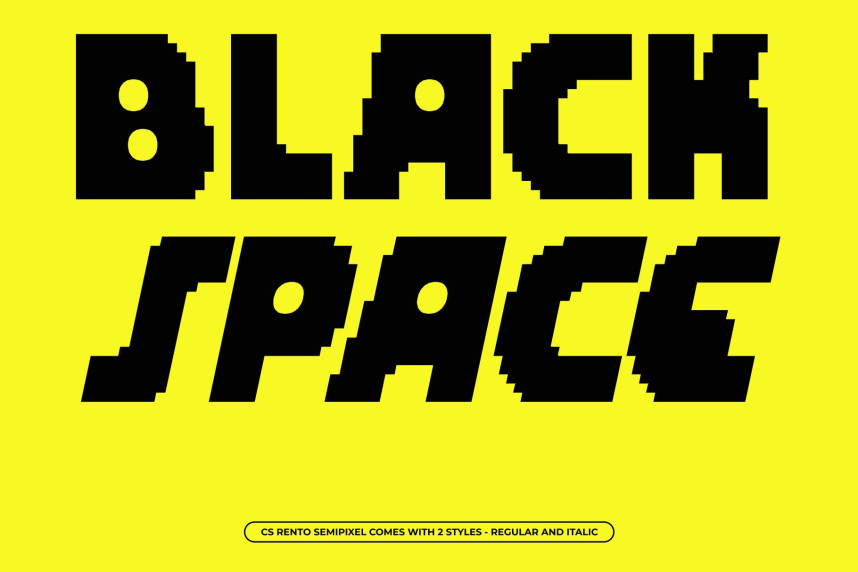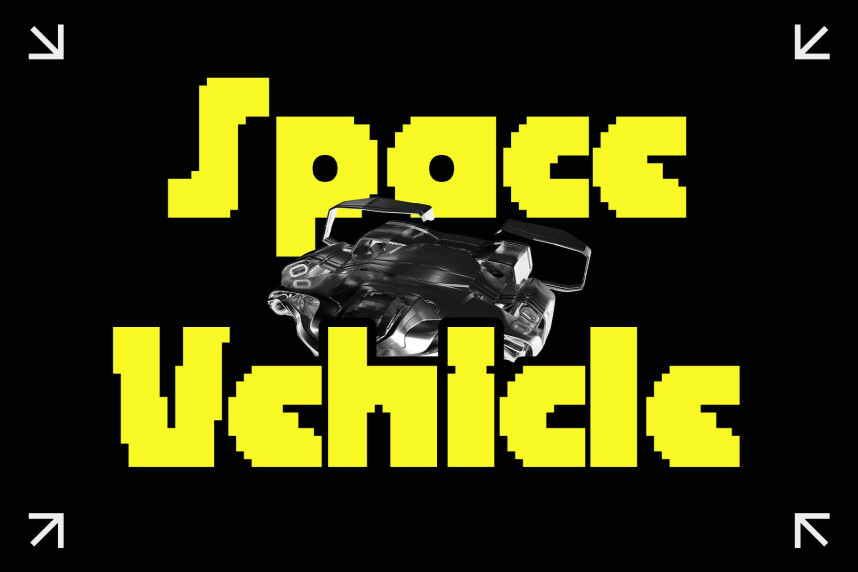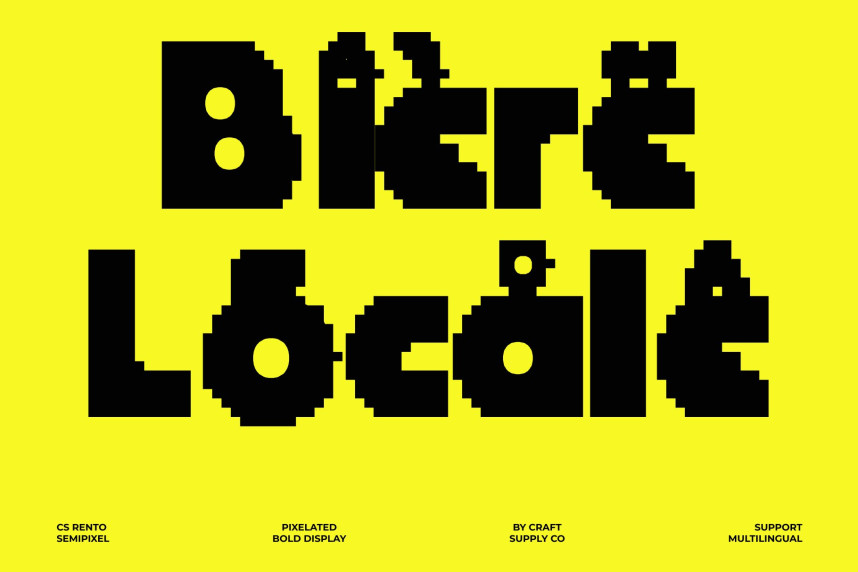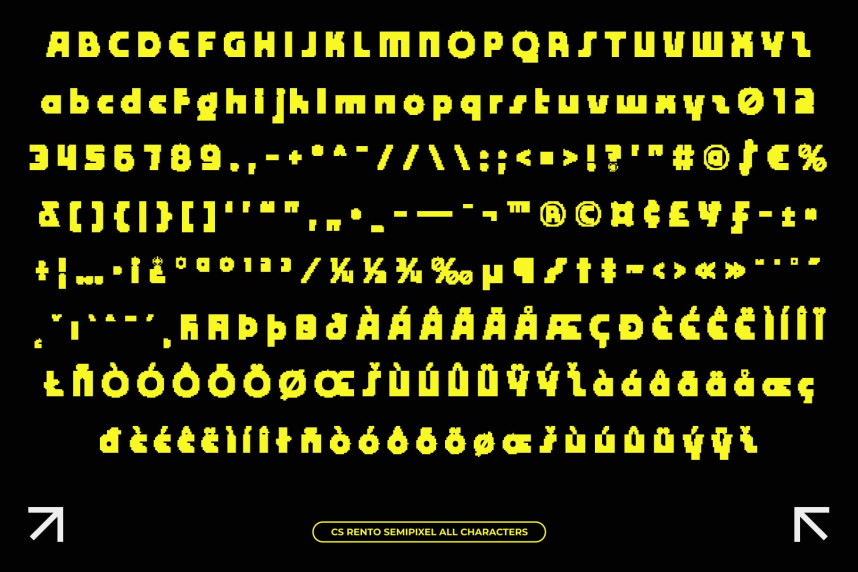
CS Rento Semipixel Font
CS Rento Semipixel Font – Bold Display Font: Where Geometric Strength Meets Smooth Retro-Digital Style
Strong Geometric Forms with Bold Visual Clarity
This is a bold display font built from strong geometric shapes enhanced with pixel-based detailing. Its thick contemporary structure creates a commanding visual identity filled with confidence, clarity, and modern digital energy. Every character feels impactful and highly readable, making the font perfect for display compositions that demand attention and visual memorability.